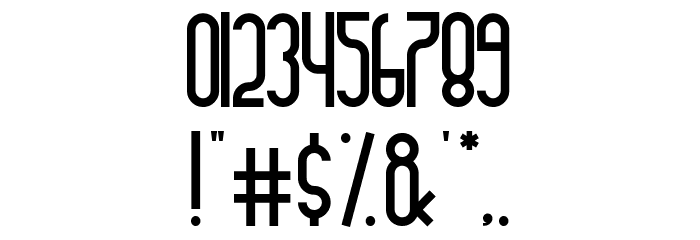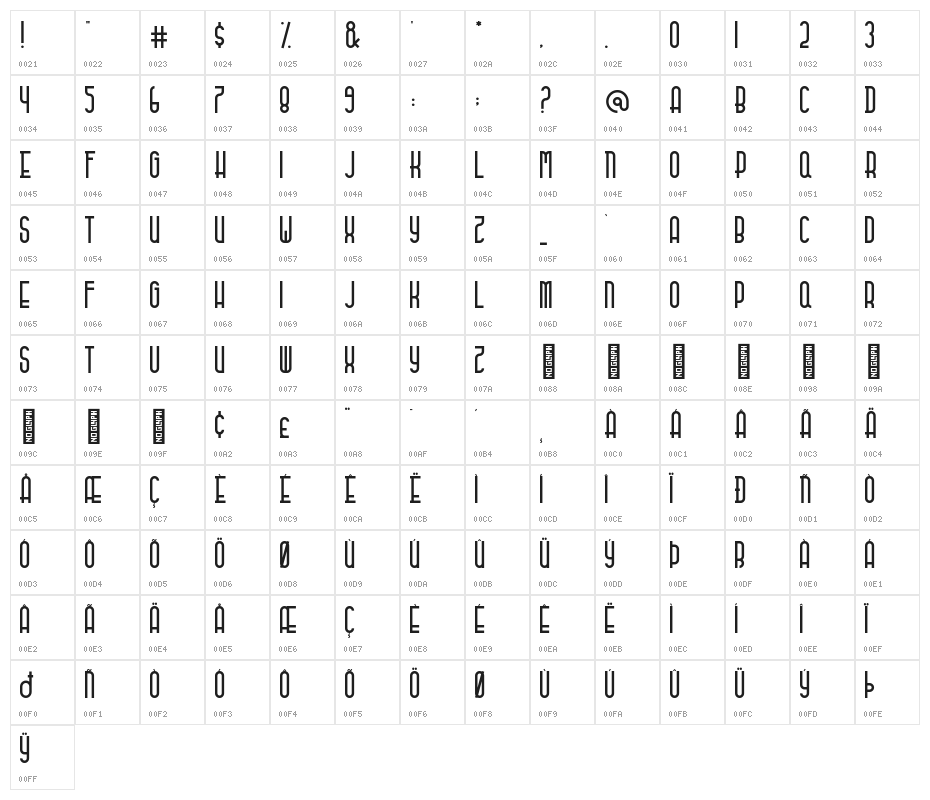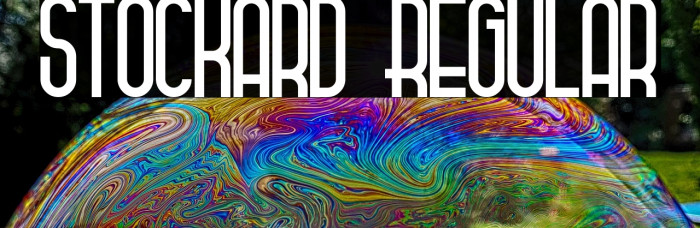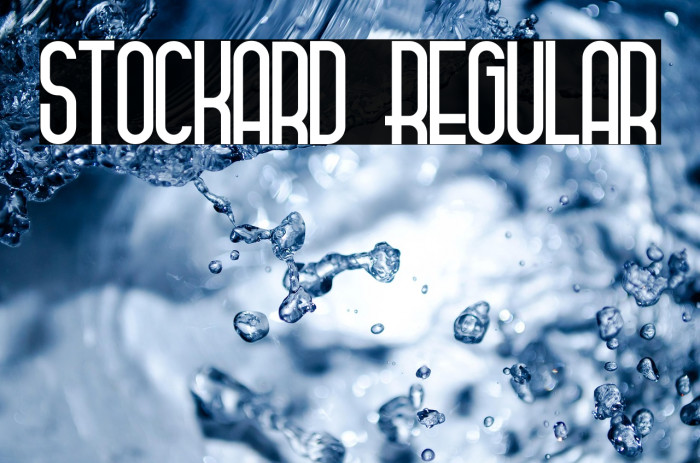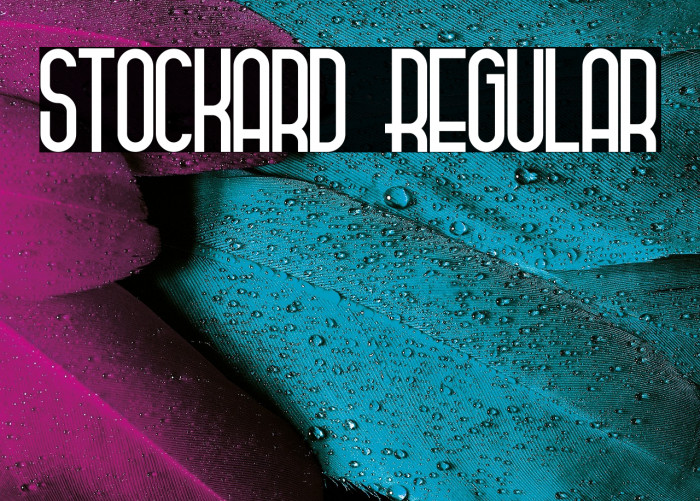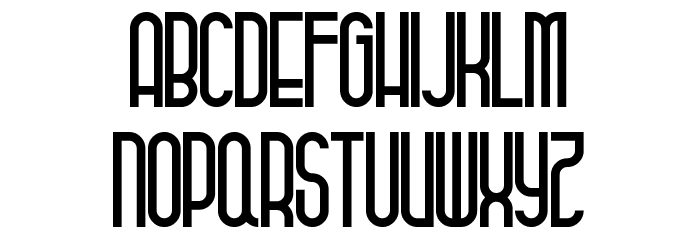
Stockard Regular Font
Stockard Regular Description
This font features a unique and modern design with elongated and narrow characters. The uppercase letters are particularly striking, with a geometric and structured appearance that gives a sense of sophistication and style. The lowercase letters maintain the same narrow form, ensuring consistency across the typeface. The numbers are clear and distinct, making them easily readable. Special characters are well-integrated, maintaining the overall aesthetic. This font is ideal for projects that require a contemporary and stylish look, such as branding, advertising, and editorial design.
Use CaseHeadlines, Logos, Branding
Proposed ProjectsIdeal for branding, advertising, editorial design, and modern web design.